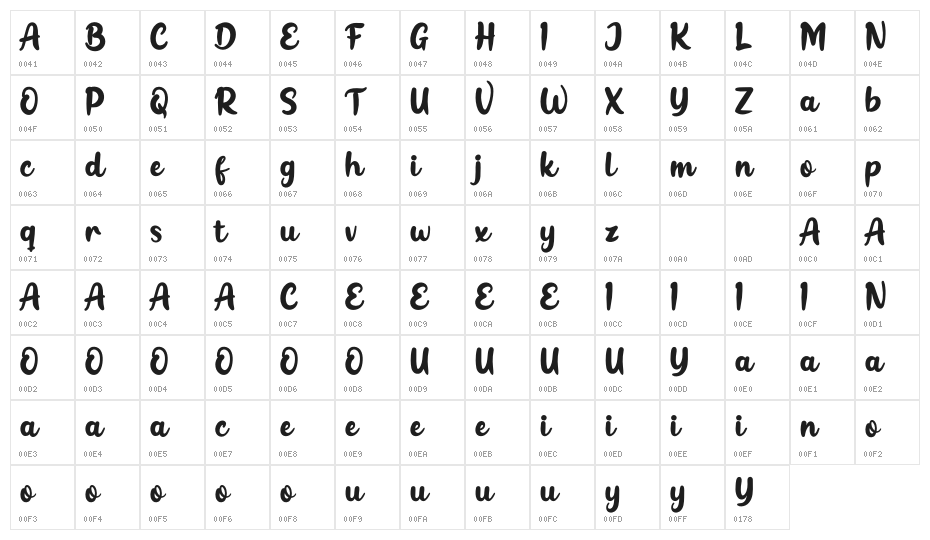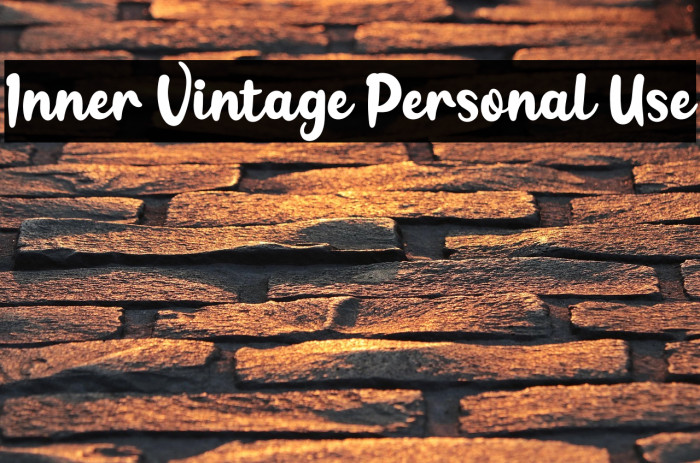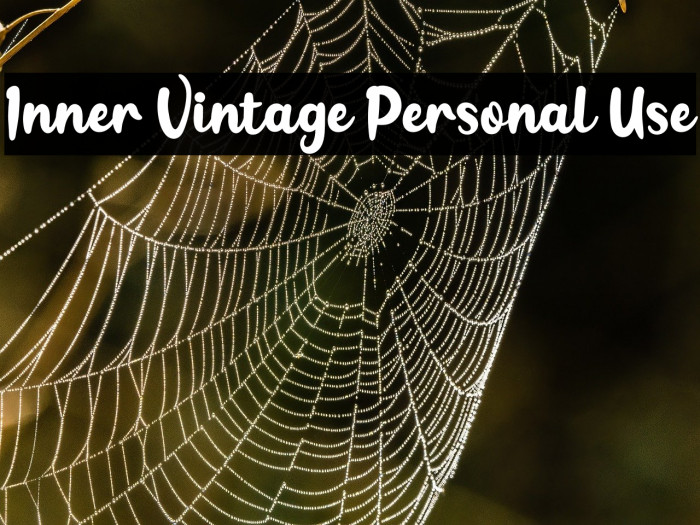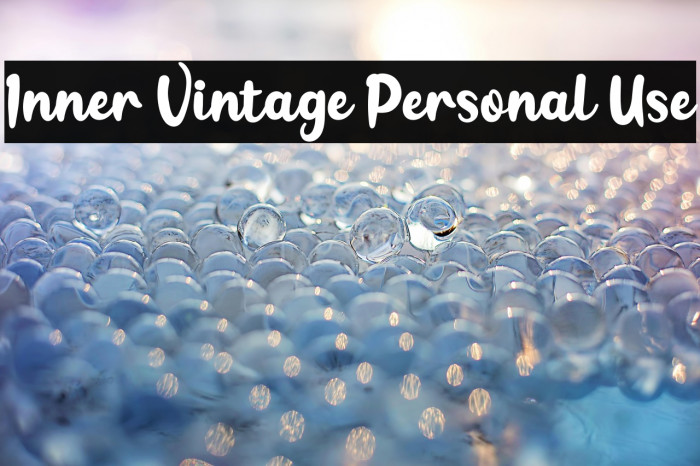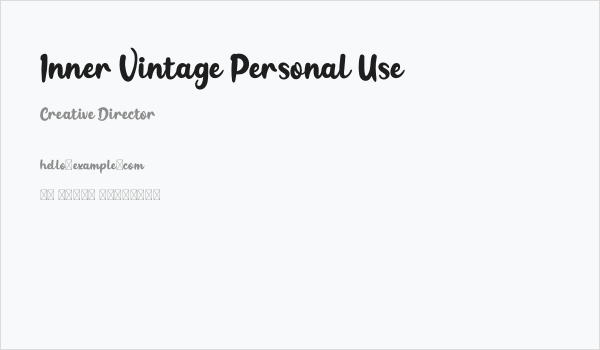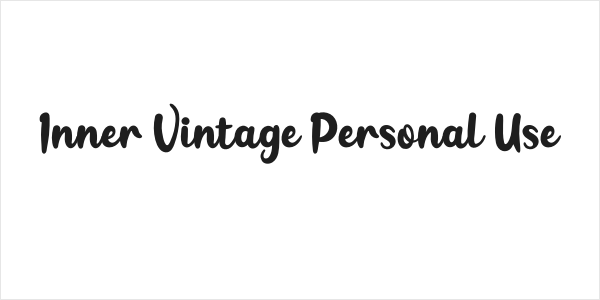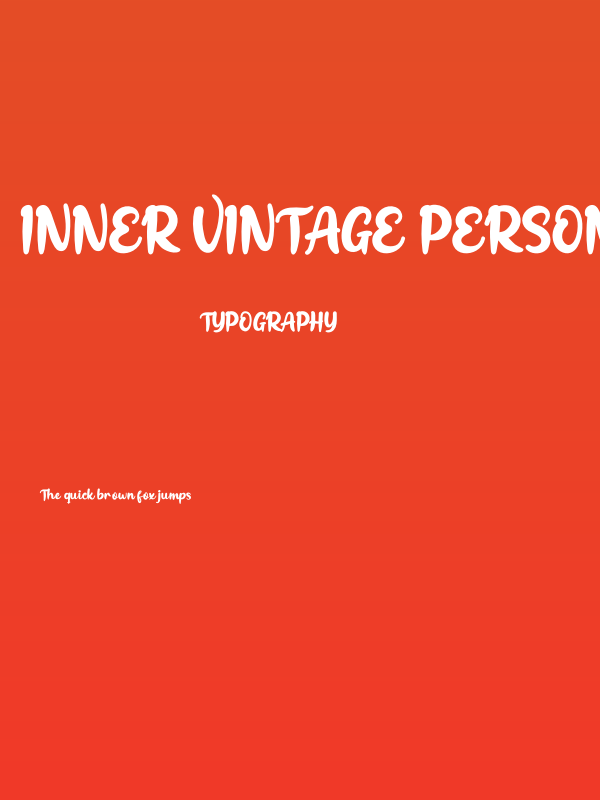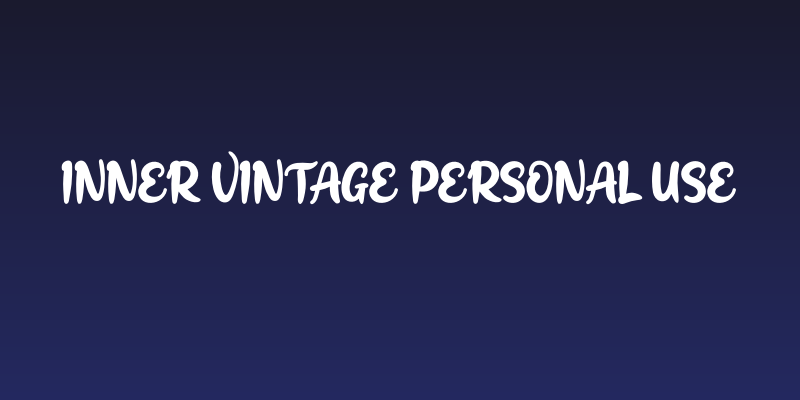
Inner Vintage Personal Use Font
Inner Vintage Personal Use Description
This font features a bold, flowing script style that exudes a vintage charm. The uppercase letters are characterized by their thick, rounded strokes and smooth curves, giving them a playful yet elegant appearance. The lowercase letters maintain this fluidity, with some letters featuring distinctive loops and swashes that add to the overall decorative feel. The font's bold weight ensures strong visibility, making it suitable for eye-catching designs. The character spacing is relatively tight, which enhances the cohesive look of the text. This font does not include special characters or numerals, focusing solely on the alphabet. Its style is reminiscent of hand-painted signs or retro advertisements, making it ideal for projects that aim to evoke nostalgia or a sense of classic elegance.